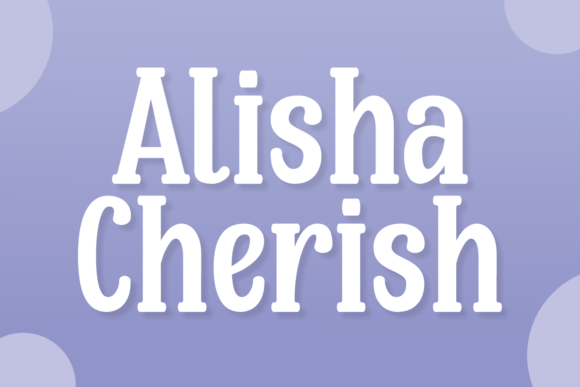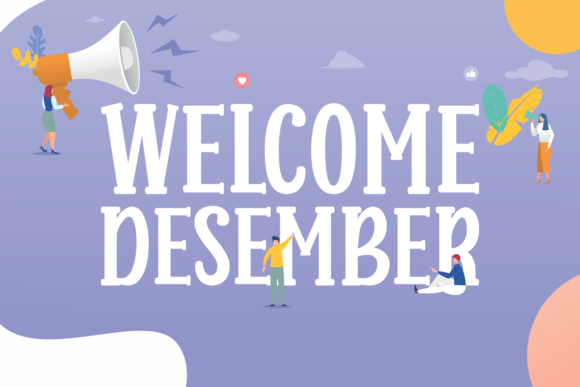
Alisha Cherish is a friendly serif font featuring bold display characters. You will certainly cherish having this font in your library for your next craft, print, or digital design! It is compatible with cutting machines such as Cricut and Silhouette.
Alisha Cherish Font